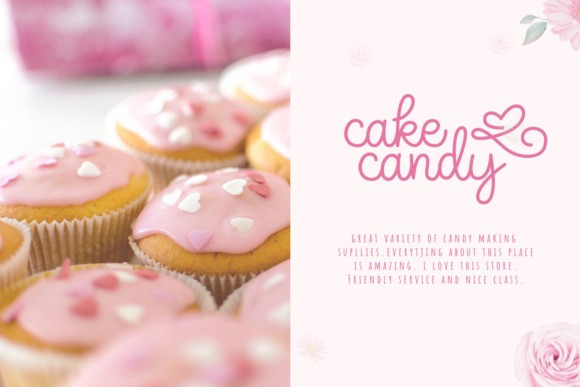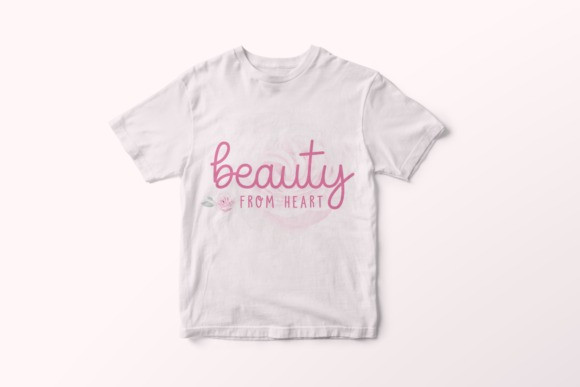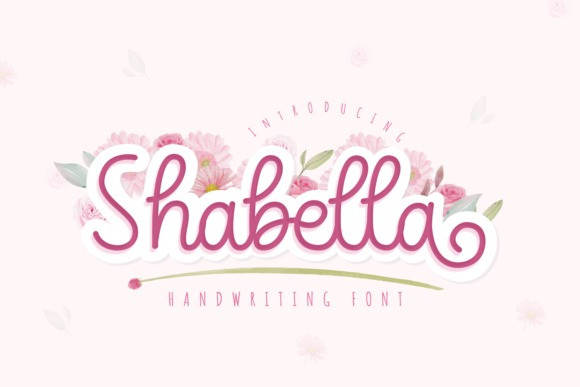
Shabella Font
Shabella is a lovely script font featuring delicate characters that seem to dance along the baseline. Add this font to your most creative ideas, and notice how it makes them stand out!